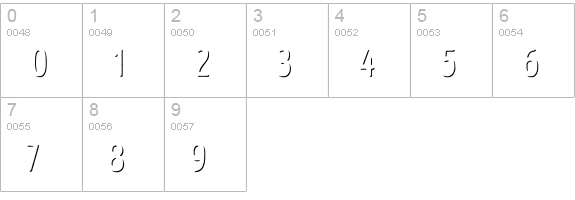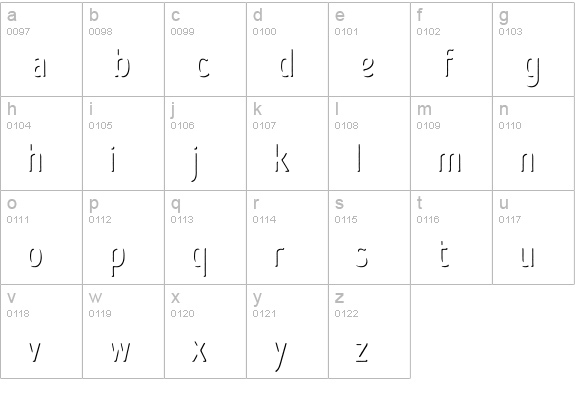
Intro Head R Shade Font Details
Intro Head R Shade is a versatile and eye-catching display font that will make your designs stand out. This unique font features bold, shadowed letters that add depth and dimension to any project. Whether you're creating a poster, logo, or social media graphic, Intro Head R Shade is sure to grab attention. The best part? This font is completely free to download at FontsMarket.com. With just a few clicks, you can add this stunning font to your collection and start using it in your designs right away. Don't miss out on the opportunity to elevate your projects with Intro Head R Shade - download it for free today!